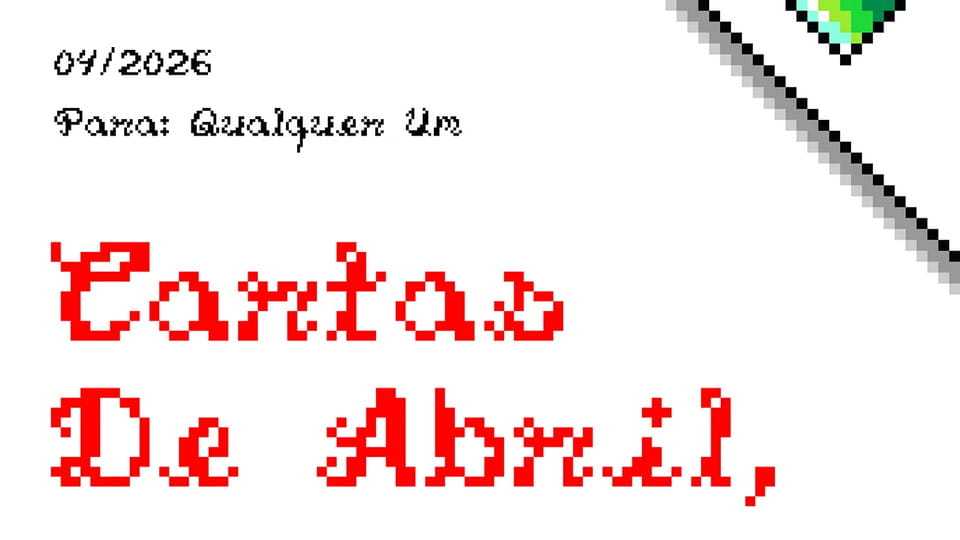
Download Cartas De Abril font, a charming pixel-inspired script typeface that combines retro digital aesthetics with the warmth of handwritten lettering.